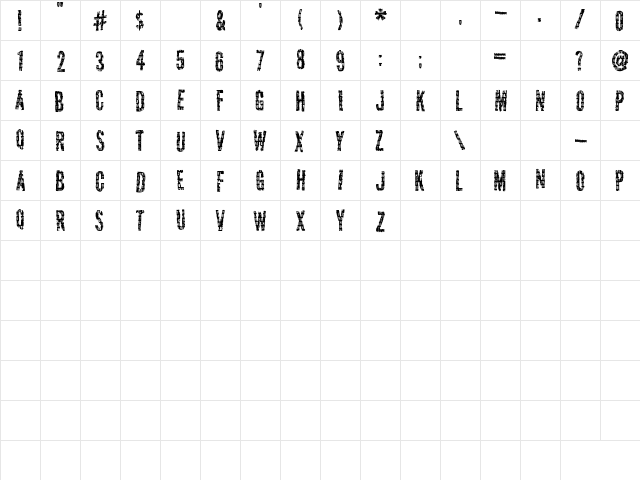
2Peas Important Notice 2Peas Important Notice Font Preview
2Peas Important Notice 2Peas Important Notice
2Peas Important Notice 2Peas Important Notice Font Details
| Style | 2Peas Important Notice |
| Foundry | High-Logic |
| Designer | High-Logic - Erwin Denissen 1999 |
Design Context for 2Peas Important Notice Typeface
2Peas Important Notice is a composed and adaptable typeface that performs quietly and consistently across a wide range of design contexts.